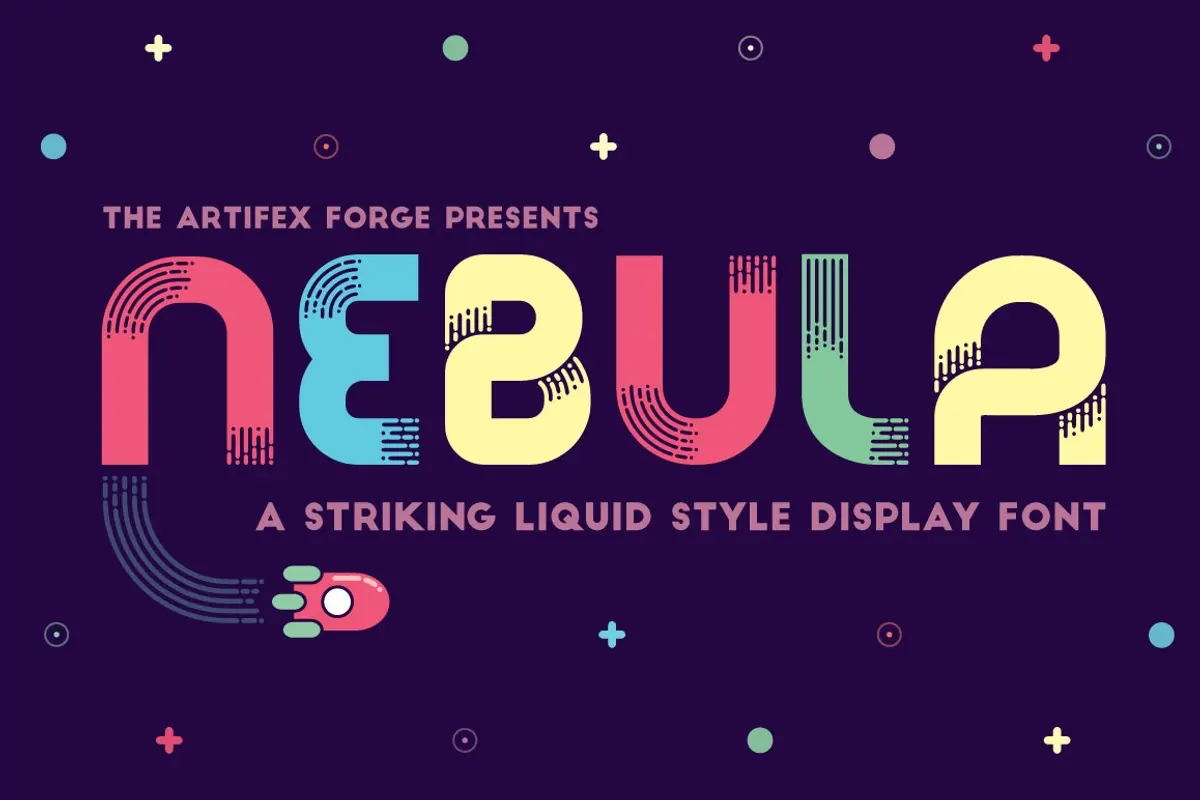
Nebula - A Liquid Style Font Free Download
Please note, to use this font for commercial purposes, you must purchase the full version. Nebula is a dynamic and fluid font designed with liquid-style letterforms that capture movement and energy. Perfect for futuristic designs, branding, logos, and creative projects, this font adds a smooth, liquid-like feel to your work. Whether you're designing for a tech brand, an innovative event, or a modern campaign, Nebula brings a unique and captivating style to your designs. Test it out and enjoy free download access for personal use. Experience the fluid beauty of Nebula - A Liquid Style Font Free Download before purchasing the commercial license. Add a smooth, dynamic touch to your designs with Nebula.